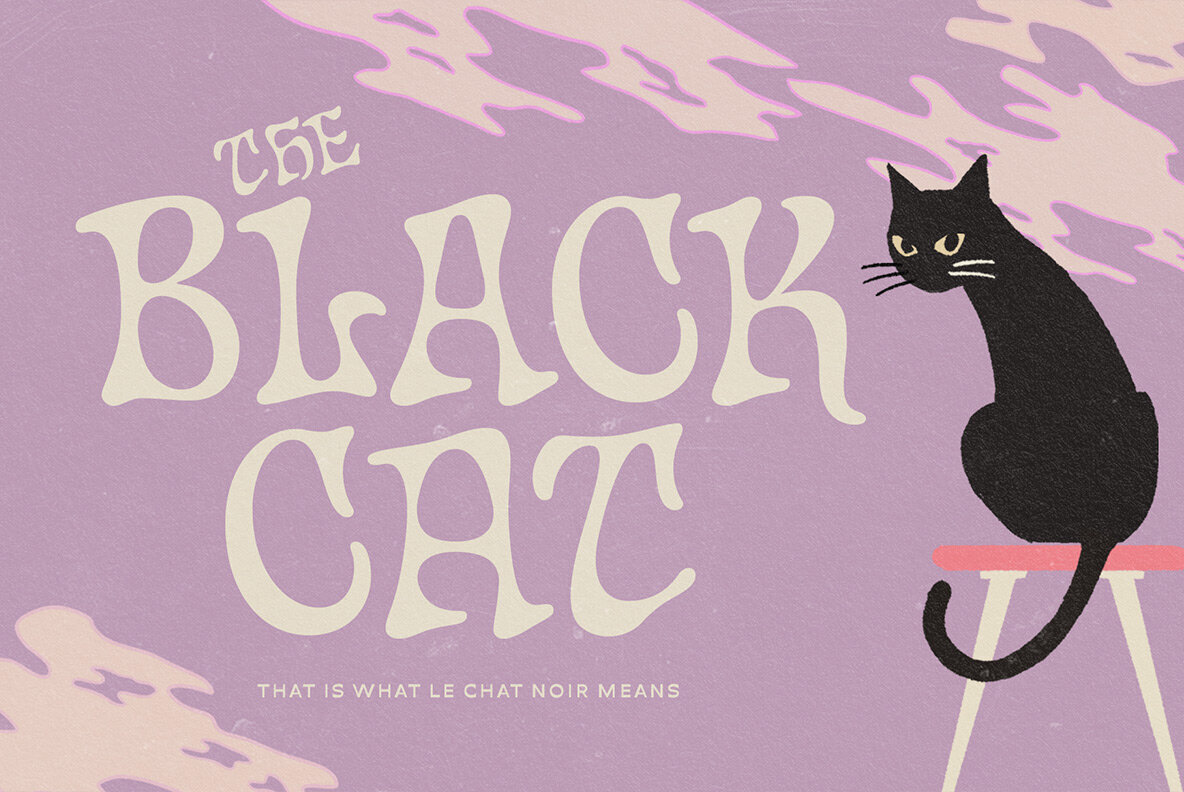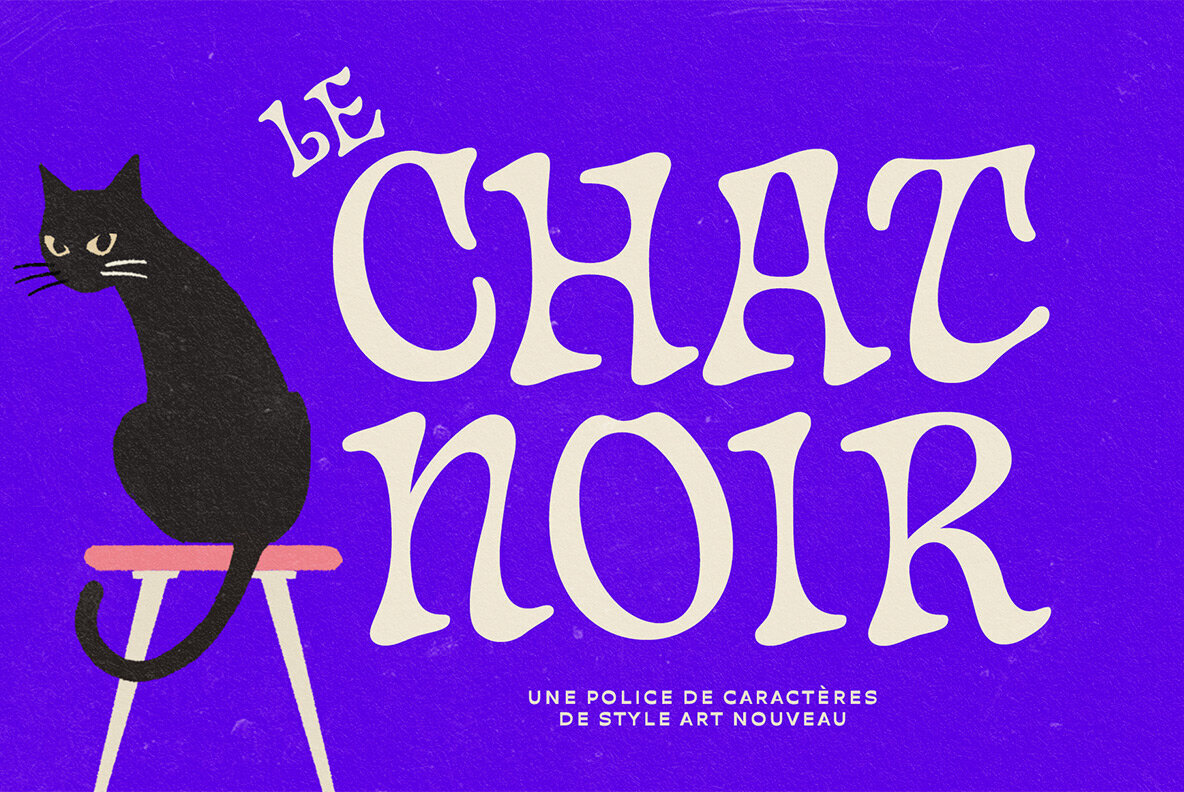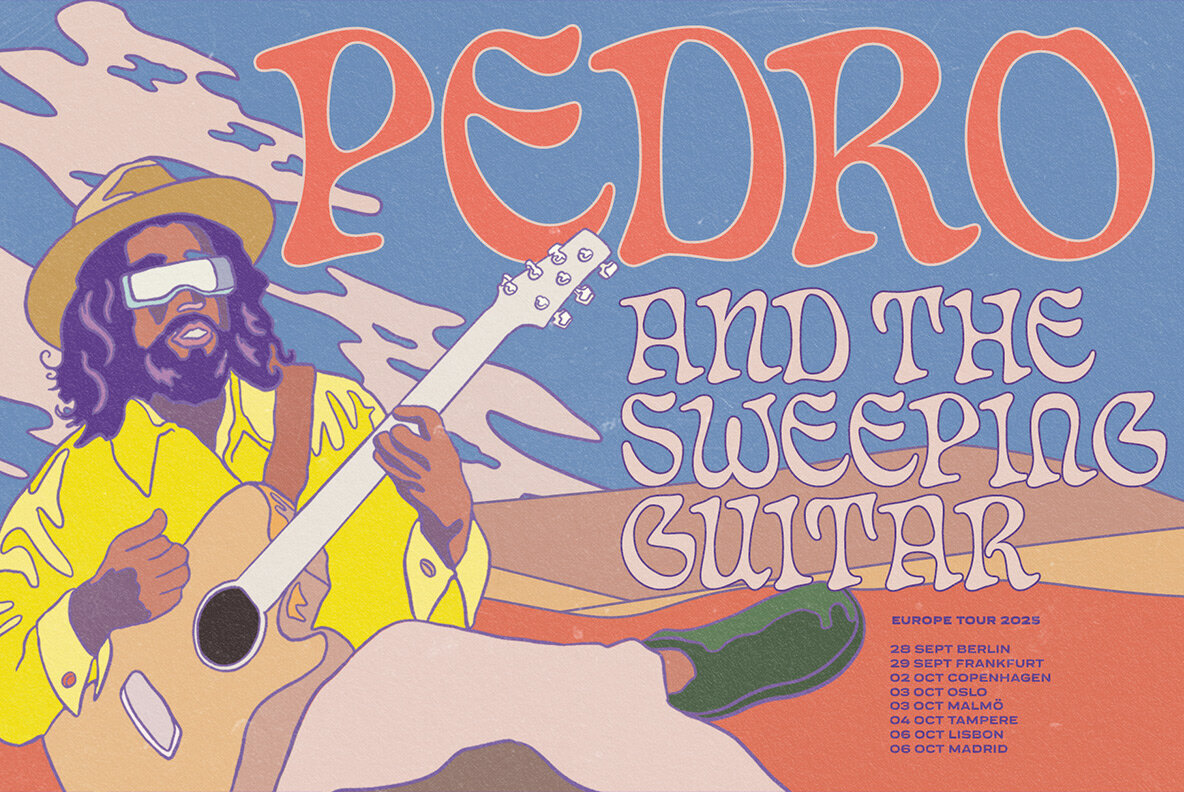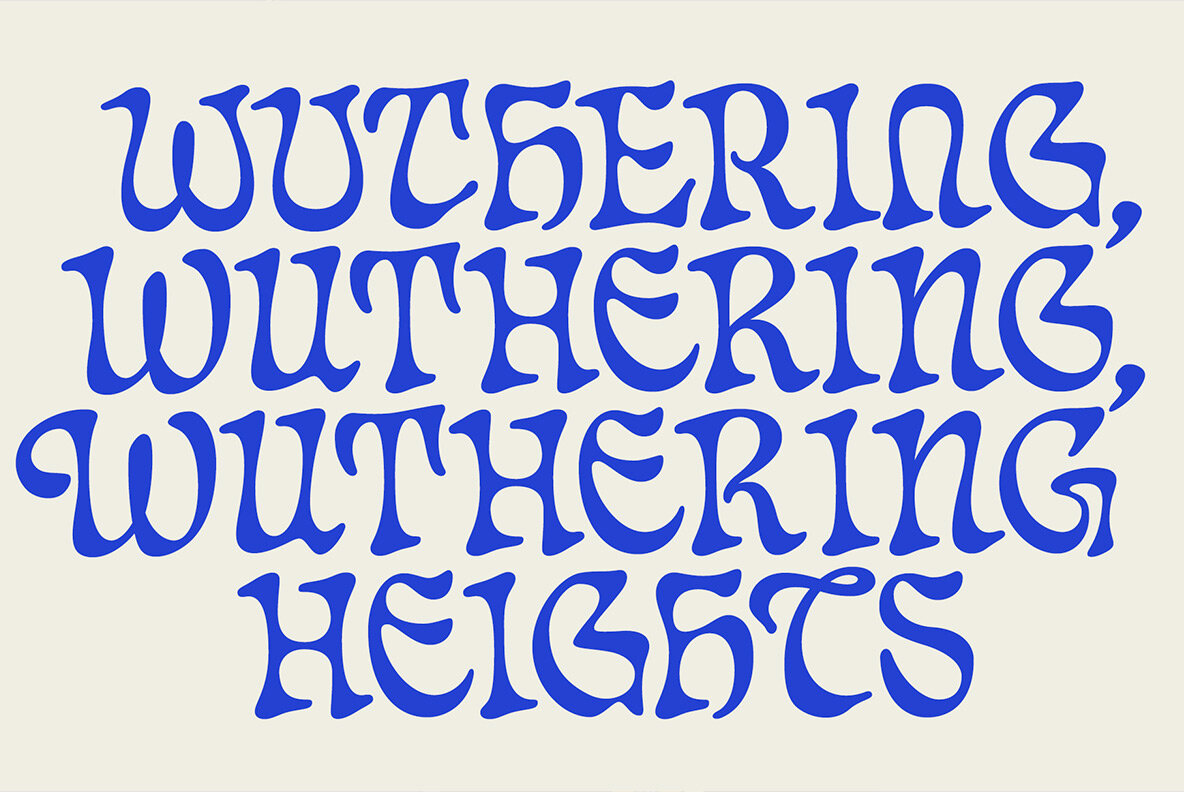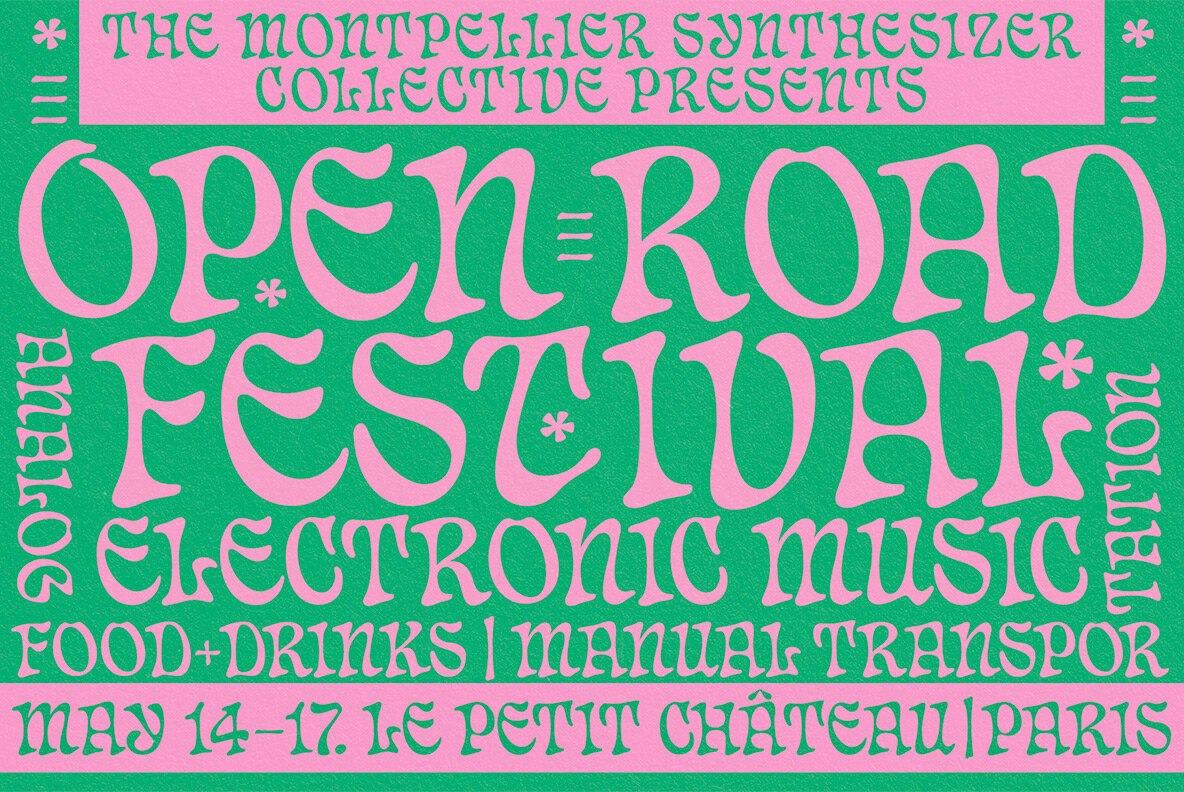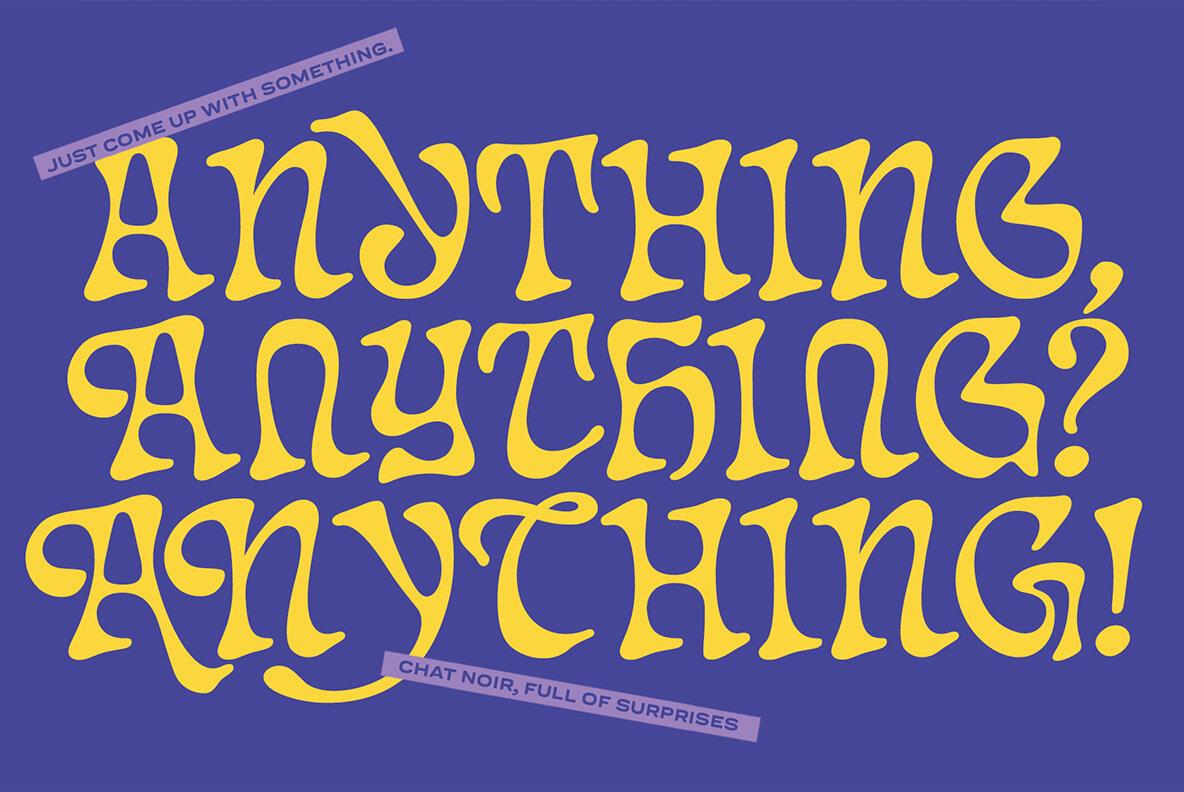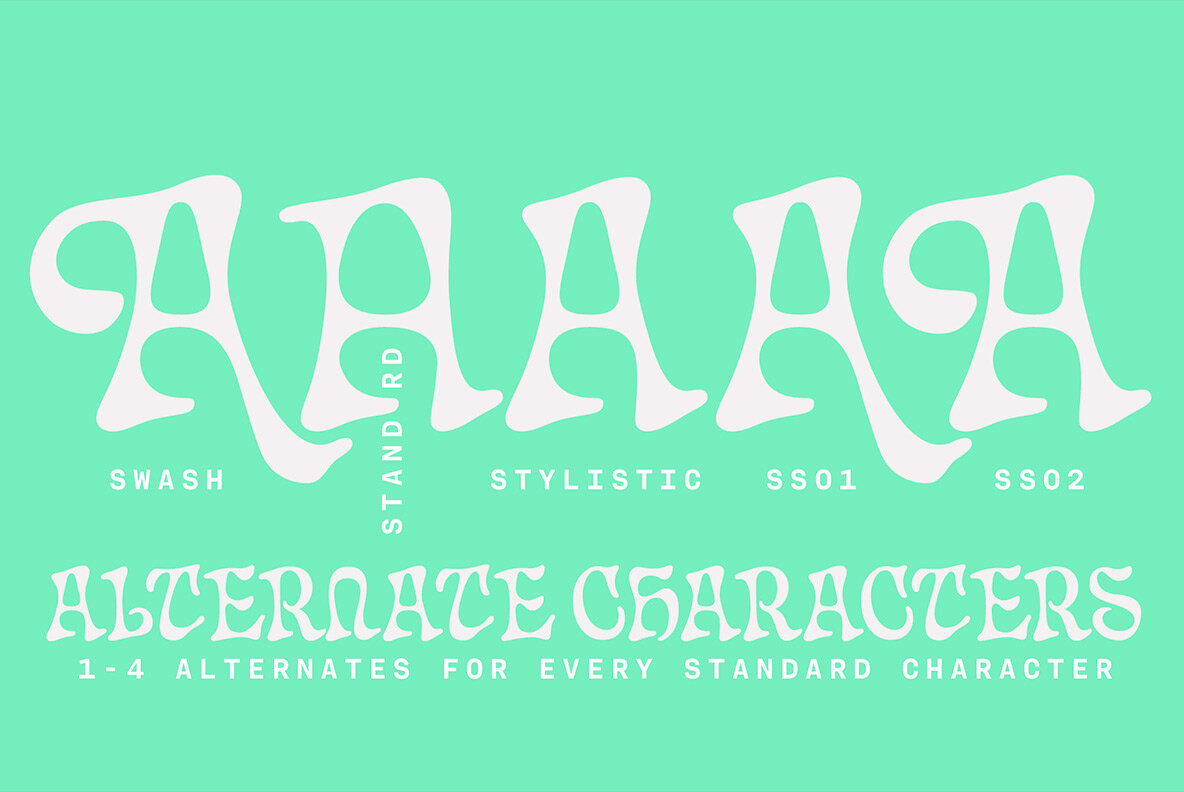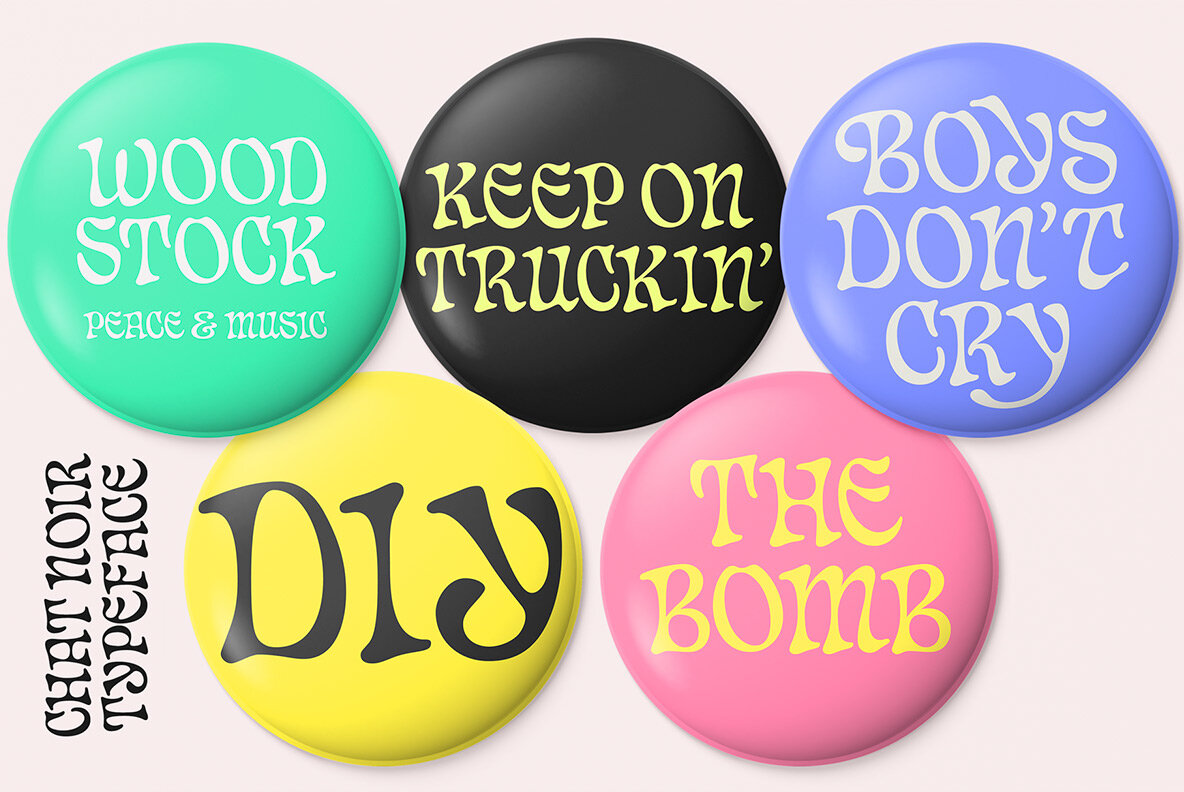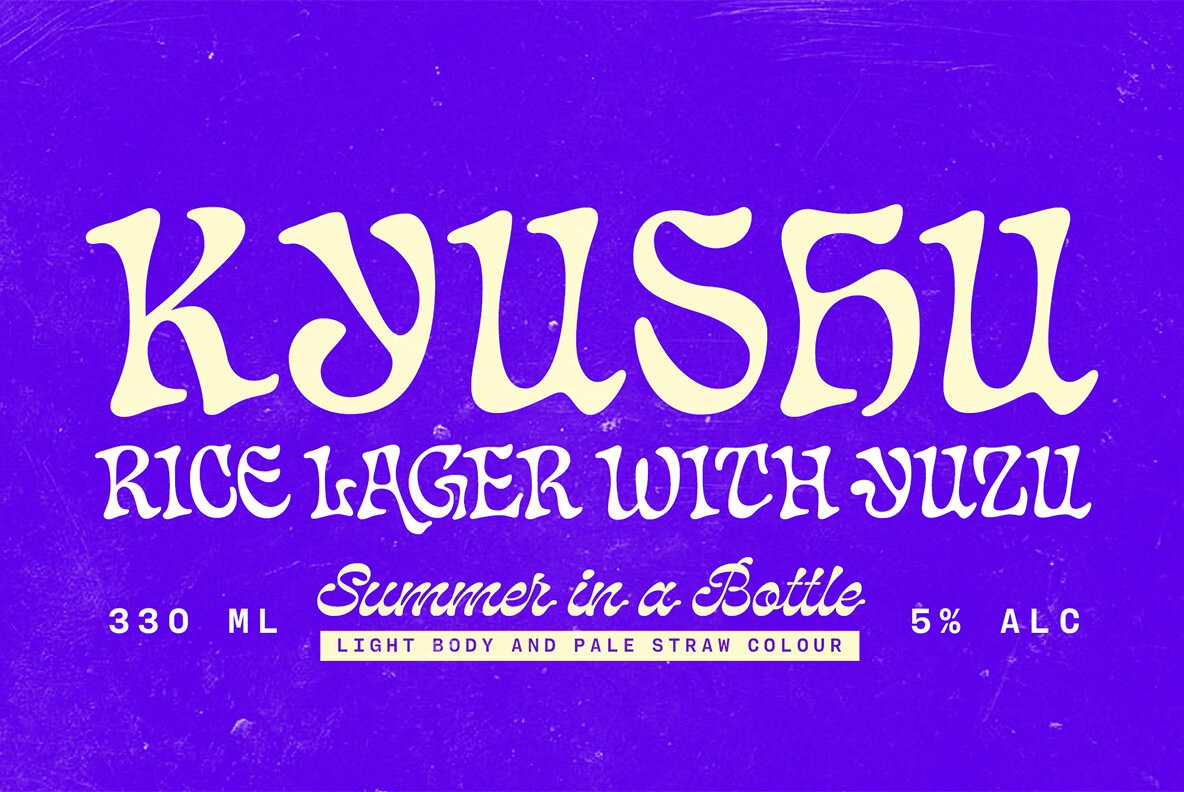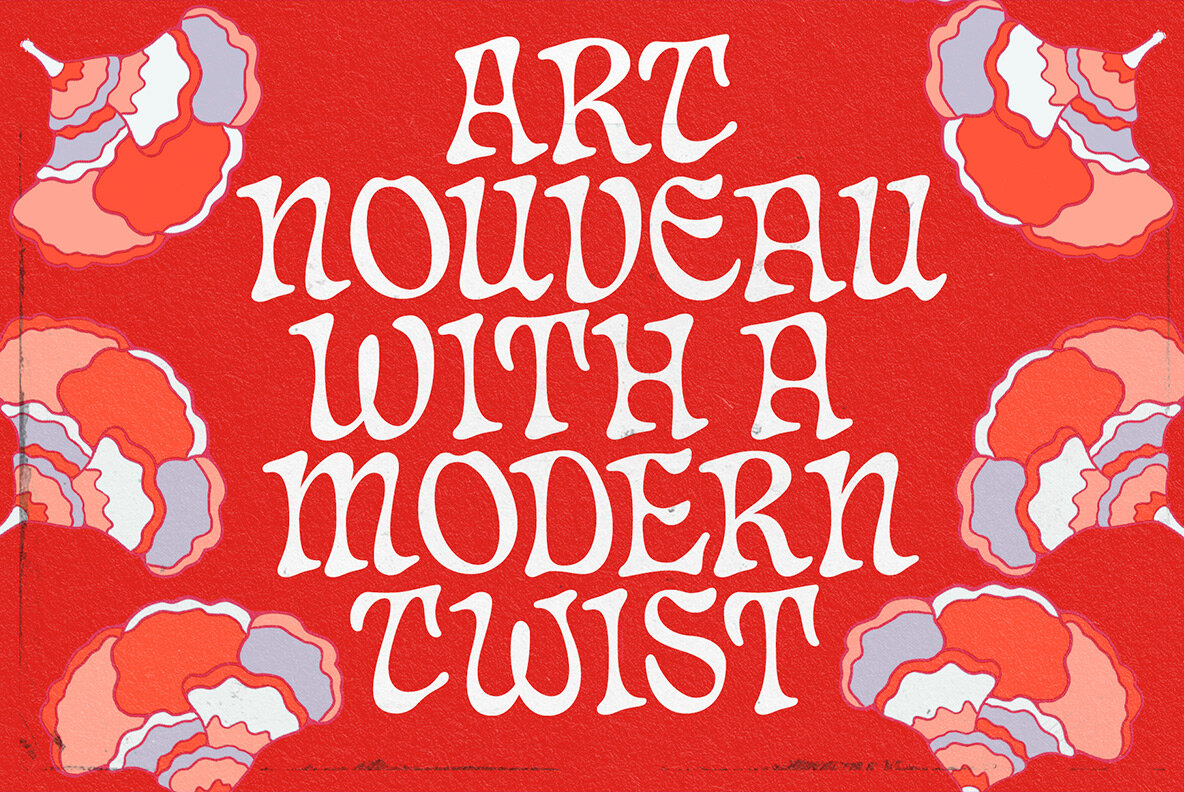
Chat Noir Font
Chat Noir Regular
Le Chat Noir is a unique serif typeface that elegantly combines art nouveau inspiration with subtle calligraphic elements and modern touches. Ideal for art shows, band posters, LP covers, book jackets, and T-shirts, this font brings a refined edge to any creative project. Notably, Le Chat Noir offers extensive language support, making it versatile for international use. Its design is enriched with a variety of alternate characters, available in lowercase forms through stylistic alternates, swash, and stylistic sets 1-3.Le Chat Noir: A Serif Typeface with Art Nouveau Influence